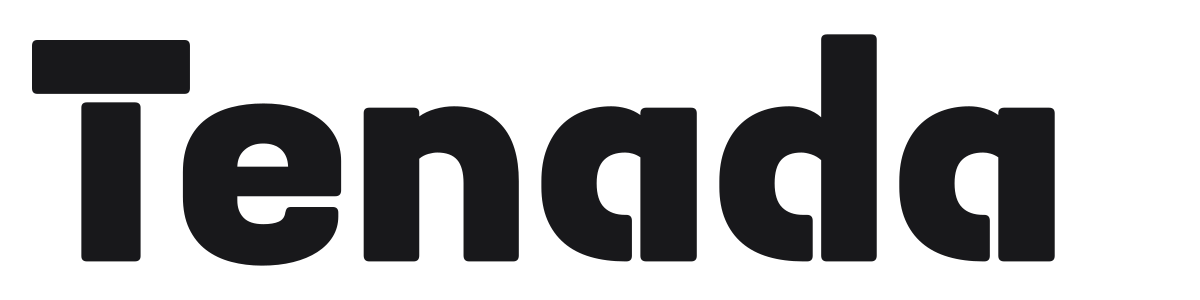
Tenada
Tenada is a heavy modern stencil sans with bold rounded strokes and integrated stencil breaks designed with 3D rendering in mind. The wide, weighty proportions and clean low-contrast construction make it hit hard at headline and poster sizes. It covers an unusually broad script range including Korean, Cyrillic, Greek, and Coptic alongside standard Latin.